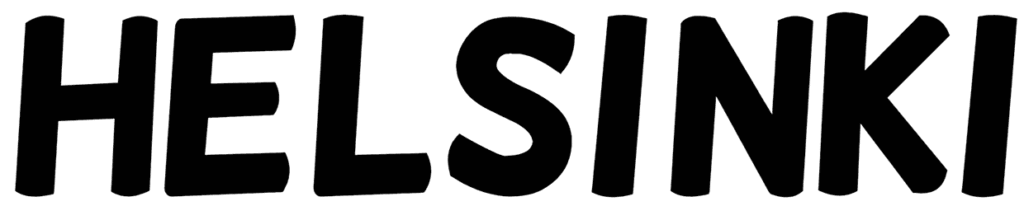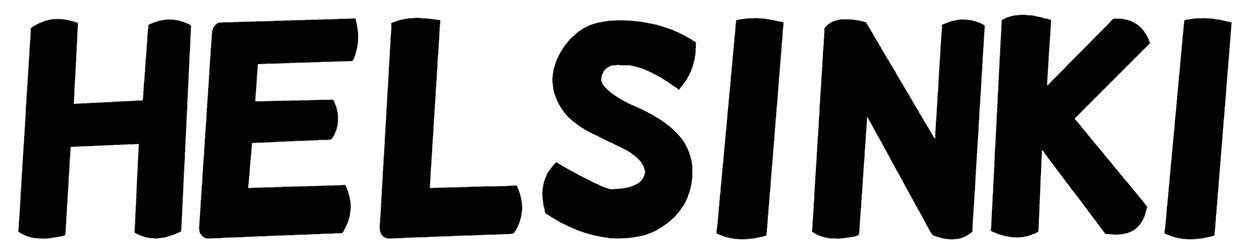
Helsinki Font
If you have been looking for a bold font with a modern and serious look for logo design, headlines, and other areas of design, Helsinki is ready to download.
Unlike other members of its family, this font does not have the same thickness in all parts of its letters, and as a result, it has become more artistic. Changing the thickness in this font, which does not support lowercase letters, has given it a strong character, but not too harsh.